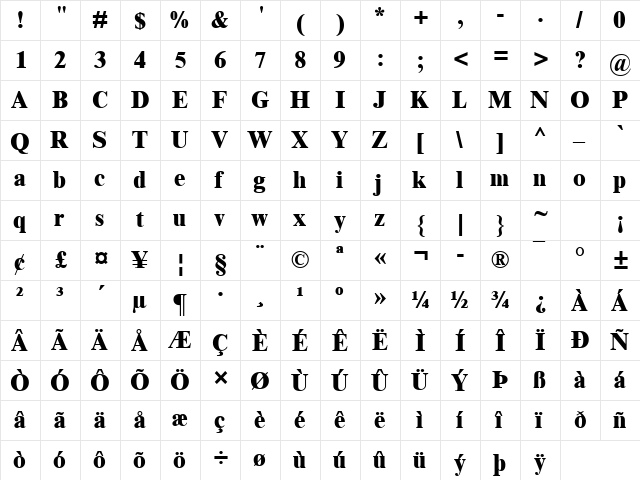
Times New Roman MT Extra Bold Regular
Design Context for Times New Roman MT Extra Bold Typeface
Times New Roman MT Extra Bold offers clean, dependable letterforms without strong stylistic allegiance, making it a practical choice for designers who need flexibility. The heavy weight commands attention and anchors typographic hierarchies.
Pro Tip: Use Times New Roman MT Extra Bold in both headline and body roles to test its range before committing to a single application.